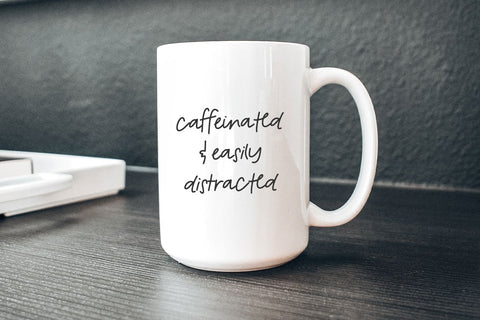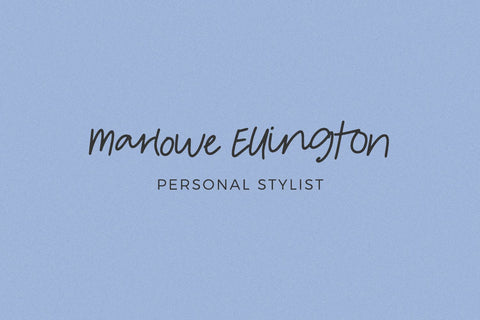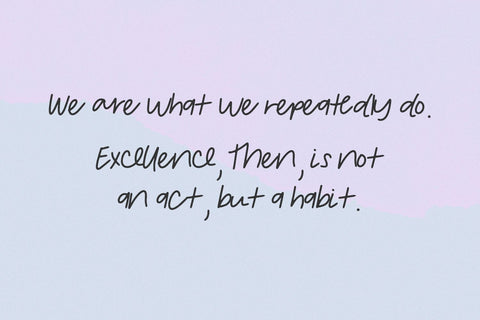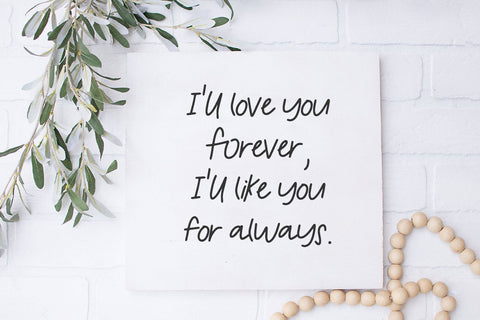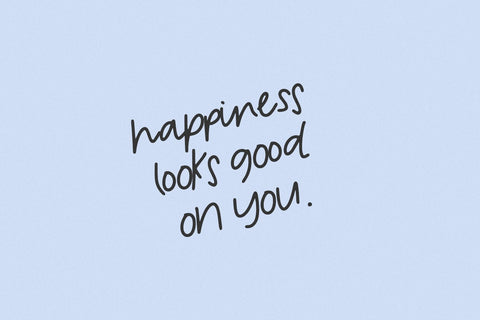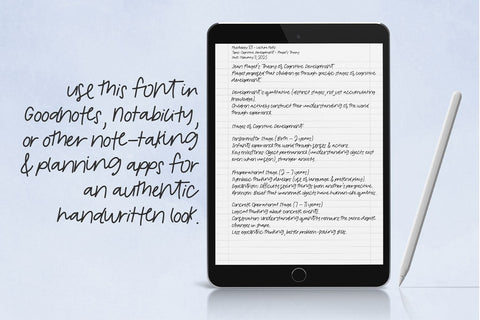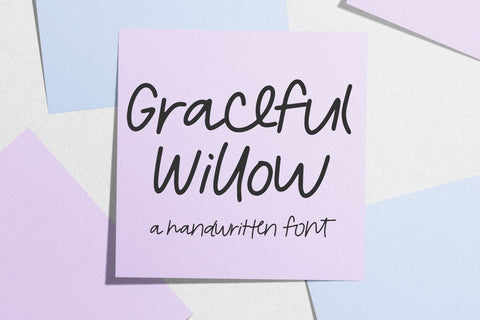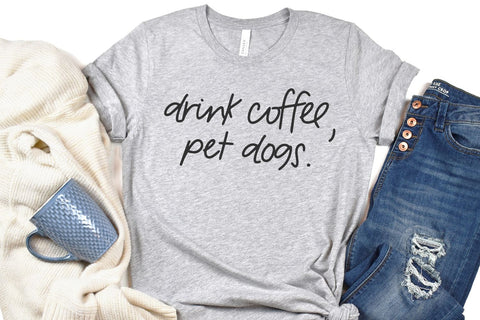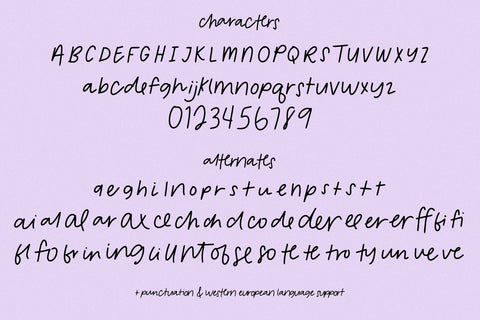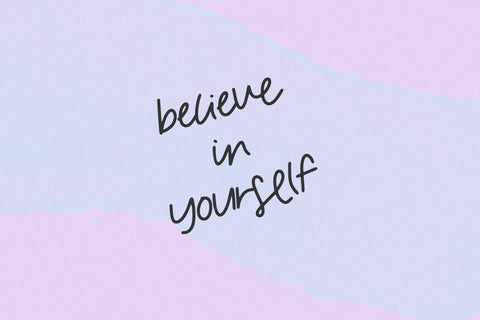
Graceful Willow Handwriting Font
Graceful Willow Script is a messy handwriting font. This script font is like what you may find in a handwritten note or a grocery list - casual, effortless, and personal. Graceful Willow is perfect for logos & branding, greeting cards, painted banners, digital planners, note-taking apps, Canva, Cricut projects, Silhouette projects, designing SVG files, laser cutting projects, & more.
Graceful Willow includes:
- full upper + lowercase characters
- numbers + punctuation
- 21 alternates - a, e, g, h, i, l, n, o, p, r, s, t, u, e, n, p, s, t, s, t, t
- 40 ligatures - ai, al, al, ar, ax, ce, ch, ch, cl, co, de, der, ee, er, er, ff, fi, fi, fl, fo, fr, in, ing, li, ll, nt, of, se, so, te, te, th, th, ti, to tro, ty, un, ve, ve
- Western European language support - English, French, Spanish, Portuguese (Brazil), Portuguese (Portugal), Italian, German (Germany), German (Austria), Dutch, Danish, Swedish, Norwegian (Bokmål and Nynorsk), Finnish, Icelandic, Irish, Welsh